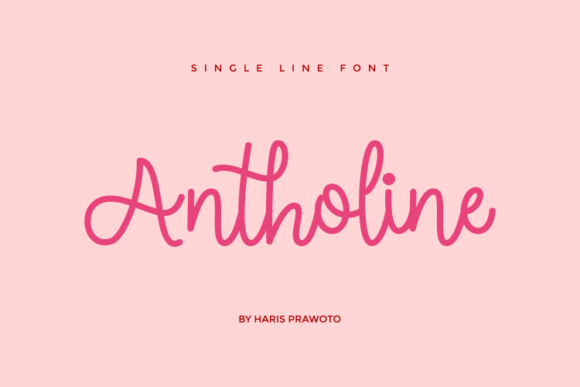
The Sweet Spot: Discovering the Joy of Antholine Font
I’ll never forget the moment I stumbled upon Antholine Font while working on a whimsical craft project for a client. I was on a mission to find the perfect handwritten font that would bring a touch of warmth and playfulness to the design. As I scrolled through my font library, Antholine caught my eye with its clean, thin, and smooth vibe. It was love at first sight! In this article, I’ll share my experience with Antholine, its features, and how to make the most of this beautiful font.
• ✨ Sweet and joyful vibe: Antholine has a unique ability to add a touch of whimsy to any design.
• ✅ Clean and smooth lines: The font’s thin and smooth lines make it perfect for designs that require a subtle touch.
• 💫 Highly versatile: Antholine works well for a wide range of design projects, from crafts to branding.
While Antholine is an amazing font, there are a few things to keep in mind:
• 🤔 Limited character set: Antholine has a standard character set, but it may not include some specialty characters.
• ⚠️ Not suitable for body text: Due to its thin lines, Antholine is best used for headlines, titles, or short paragraphs.
4. Experiment with OpenType features, such as ligatures and stylistic alternates, to add visual interest.
The Story Behind Antholine
Antholine was designed with the intention of creating a font that would bring joy and sweetness to designs. The designer aimed to craft a font that would be both clean and playful, making it perfect for a wide range of creative projects. While the designer’s story might be shrouded in mystery, one thing is clear: Antholine has captured the hearts of many designers and crafters.
Q: What type of designs is Antholine best suited for?
A: Antholine is perfect for designs that require a touch of whimsy, such as crafts, branding, and social media graphics.
Q: Is Antholine a difficult font to read?
A: Antholine is generally easy to read, but its thin lines may make it less suitable for body text or long paragraphs.